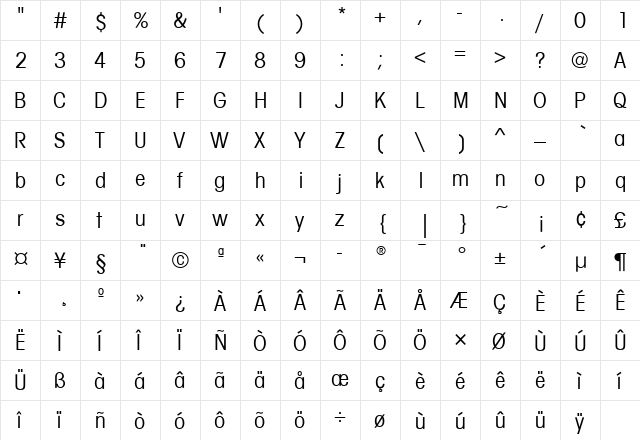
AvantGardeCdITC Book
Design Context for AvantGardeCdITC Typeface
AvantGardeCdITC offers clean, dependable letterforms without strong stylistic allegiance, making it a practical choice for designers who need flexibility.